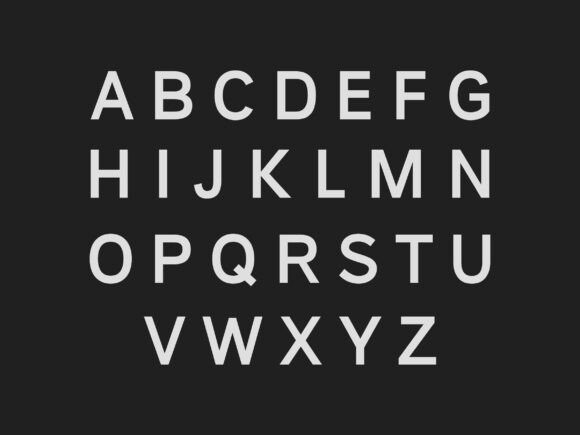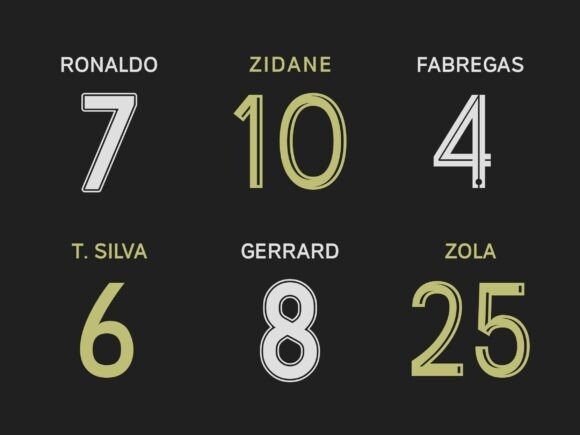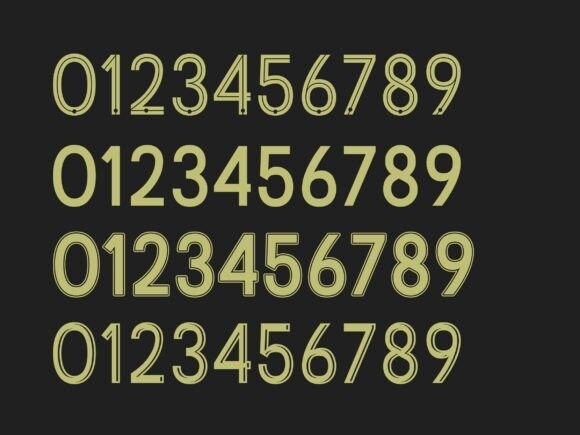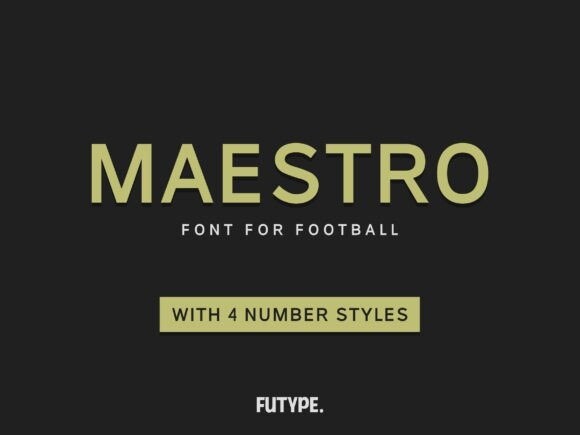
Maestro Font
Maestro Font is a captivating modern typeface that is sure to become your go-to choice for elevating your design projects. Using a sans serif font as a base also makes this font good for other purposes. Postmark is ideal for headlines, headers, logos, labels, packaging, magazines, invitations, etc.